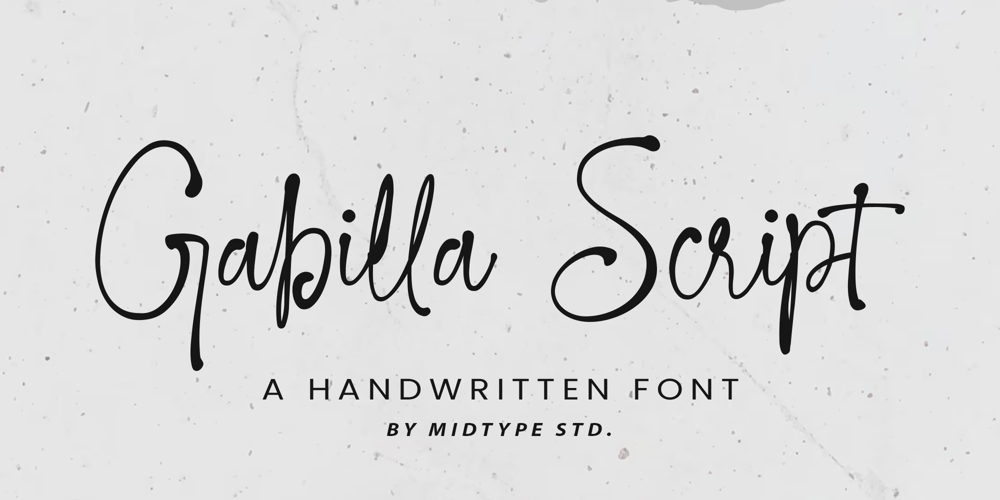
Gabilla Script Font Family was designed by Dwi Nur Hamida and published by Midtype. Gabilla Script contains 1 styles and family package options. Gabilla Script is a handwritten script font. Looks stunning on logos, branding projects, homeware designs, product packaging, mugs, quotes, posters, shopping bags, t-shirts, book covers, name card, invitation cards, greeting cards, label, photography, watermark, special events, and all your other lovely projects that need a beautiful script taste.